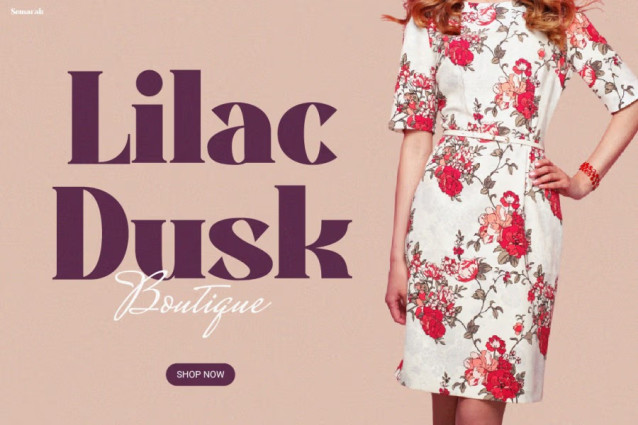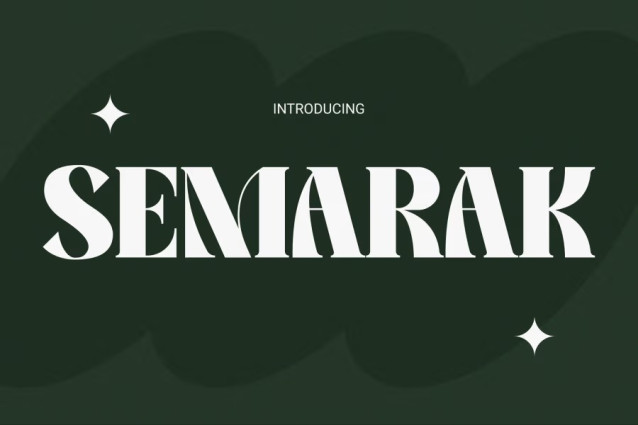
Semarak Font is a stunning blend of bold elegance and timeless sophistication. From the very first glance, this font captures attention with its strong curves, graceful serifs, and balanced contrast between thick and thin strokes. Each letter seems to tell its own story, combining modern charm with a hint of retro luxury. What makes this font truly unique is how it merges contemporary minimalism with high-fashion aesthetics, creating a typeface that instantly elevates any design. Whether used in headlines, logos, or social media visuals, it delivers a classy and confident tone that stands out effortlessly.
Unlike ordinary display fonts, Semarak evokes a feeling of confidence and creativity. Its sharp geometry and refined details make it ideal for stylish branding, digital posters, or elegant magazine layouts. Moreover, its letter spacing and visual rhythm are carefully crafted to remain highly readable while maintaining its sophisticated personality. This perfect harmony between boldness and beauty makes Instagram Font Semarak not just a typeface—but a statement piece in design.
Instagram Font Semarak is perfect for fashion designers, influencers, and creative entrepreneurs who want to project elegance and exclusivity. It suits luxury brands, lifestyle blogs, editorial spreads, and modern boutiques. From high-end clothing campaigns to stylish Instagram quotes or marketing posts, Semarak adapts beautifully, offering a chic yet approachable feel. If you’re a graphic designer seeking a typeface that brings premium vibes to your projects, this font is your best match.
It’s also perfect for advertising agencies, beauty product packaging, event invitations, or even minimalist websites. The combination of sharpness and smooth flow ensures your message looks both professional and visually stunning across all platforms.